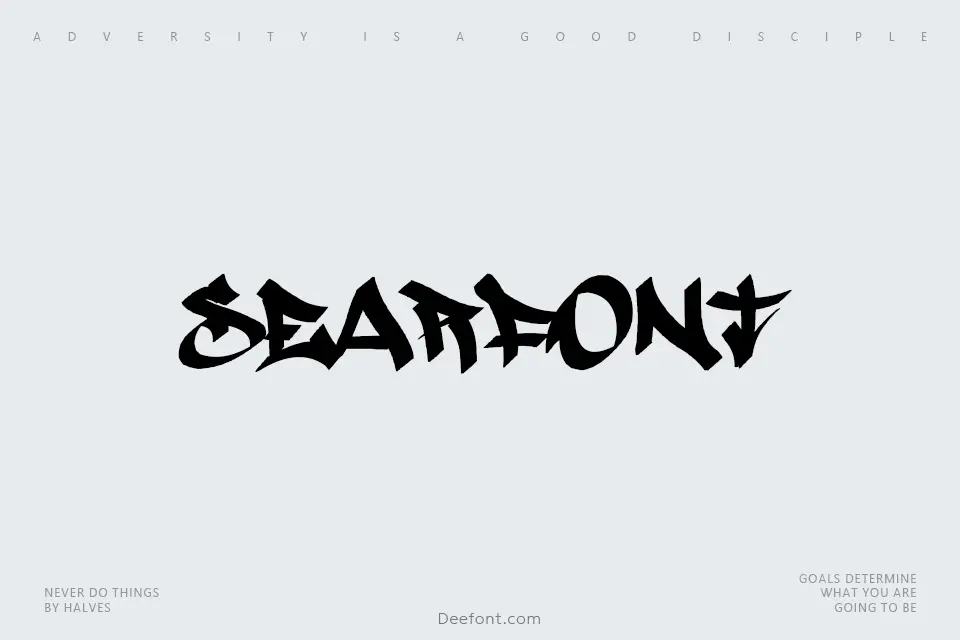
Searfont Font
Searfont is a bold and dynamic graffiti-inspired script typeface designed for creative professionals seeking distinctive visual impact. With its energetic letterforms and street art aesthetic, this font excels in poster design, urban branding, and eye-catching headlines. The flowing characters combined with graffiti elements make it an ideal choice for contemporary design projects, music-related branding, and artistic compositions that demand personality and edge.
Designed by:bartolD & Sear (Bartek Nowak)